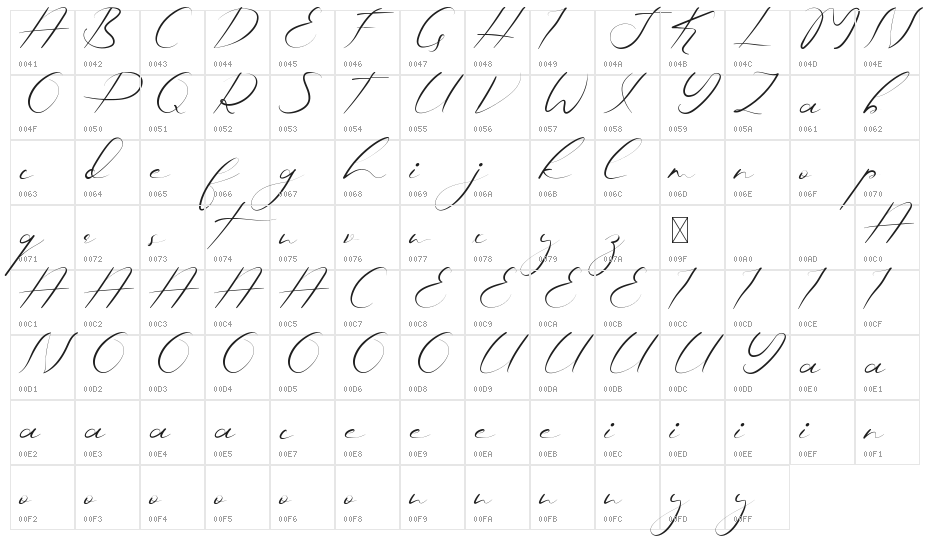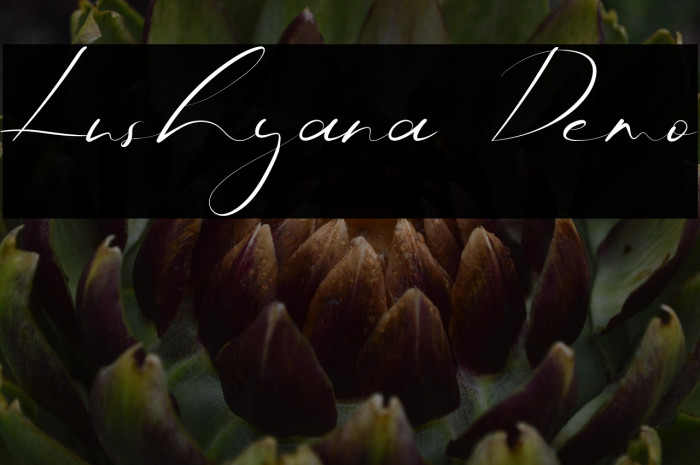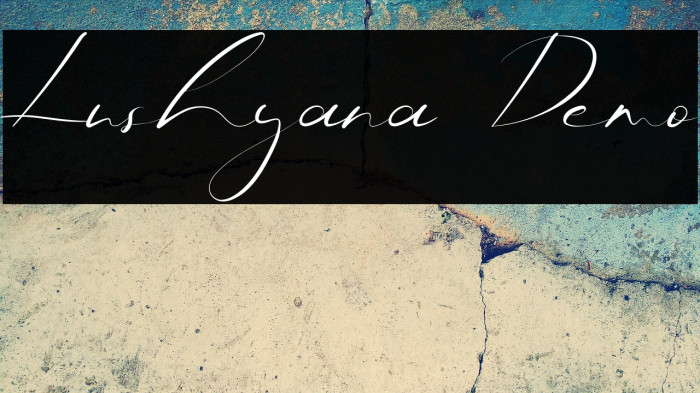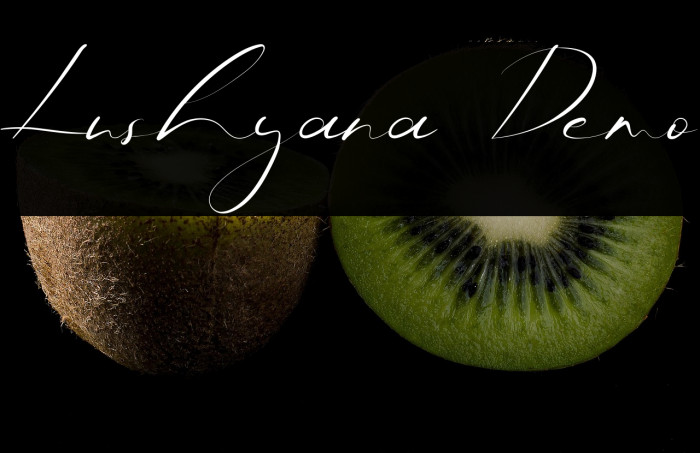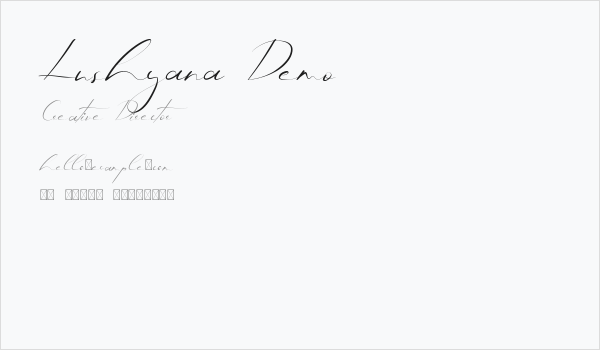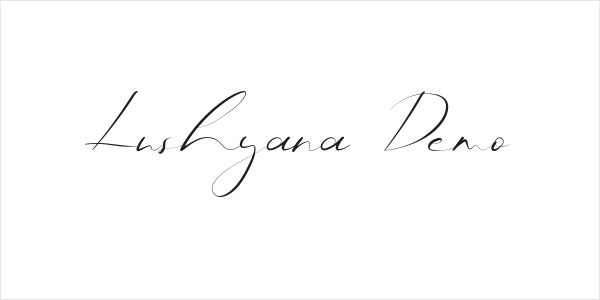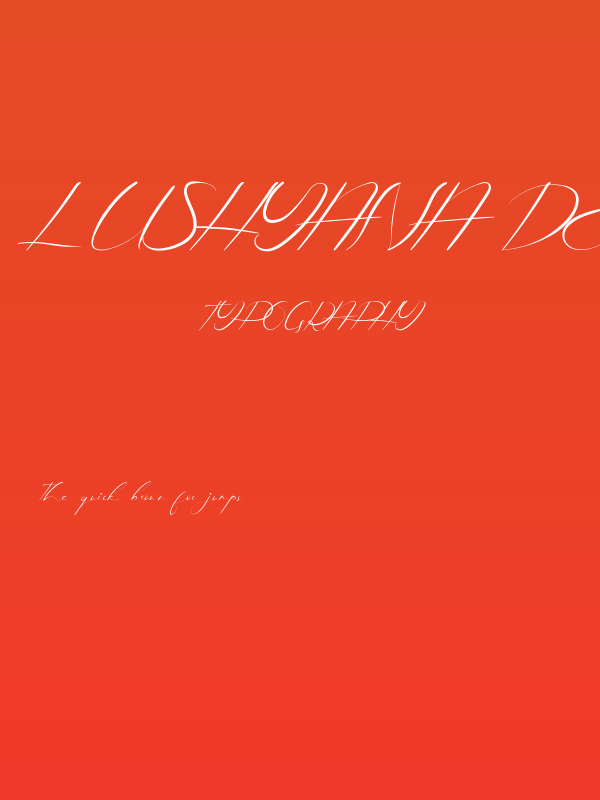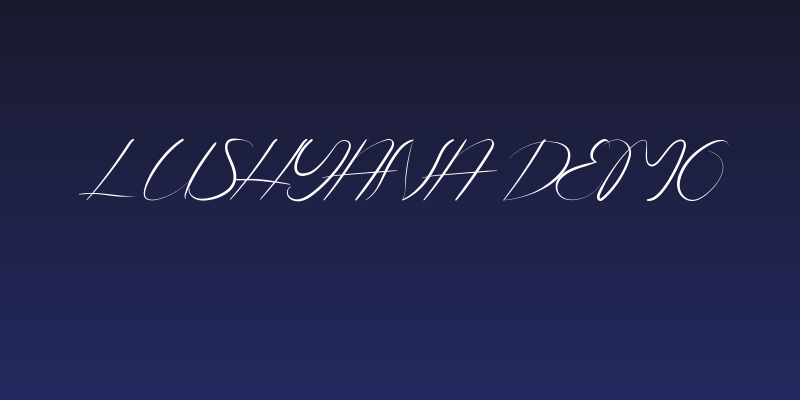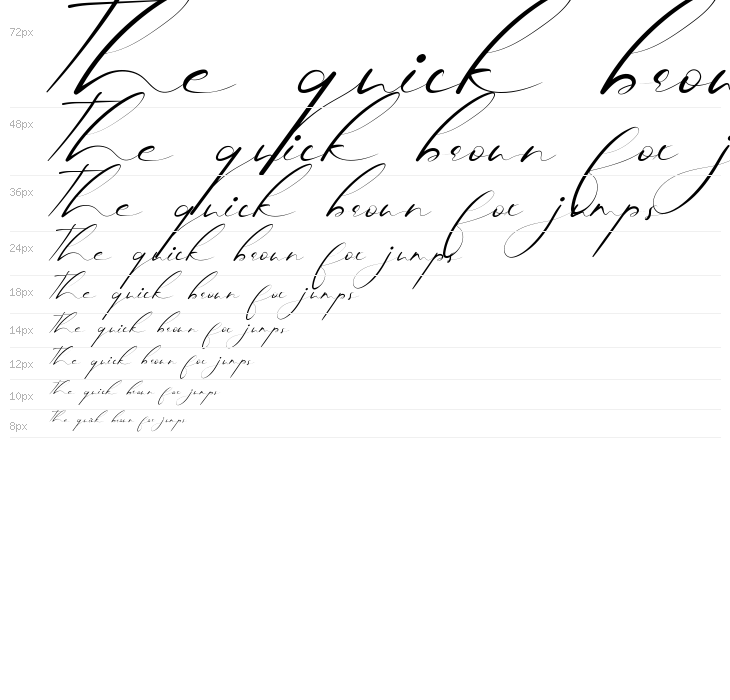
Lushyana Demo Font
Lushyana Demo Description
This elegant script font features flowing, interconnected letters with a calligraphic style. The uppercase characters are tall and slender, with graceful loops and swashes that add a sense of movement and sophistication. The lowercase letters maintain a consistent flow, with delicate curves and an airy feel. The numbers and special characters are designed to match the overall aesthetic, providing a cohesive look. This font is perfect for projects that require a touch of elegance and refinement.
| Proposed Projects | Ideal for wedding invitations, luxury branding, elegant stationery, and artistic projects that require a sophisticated touch. |